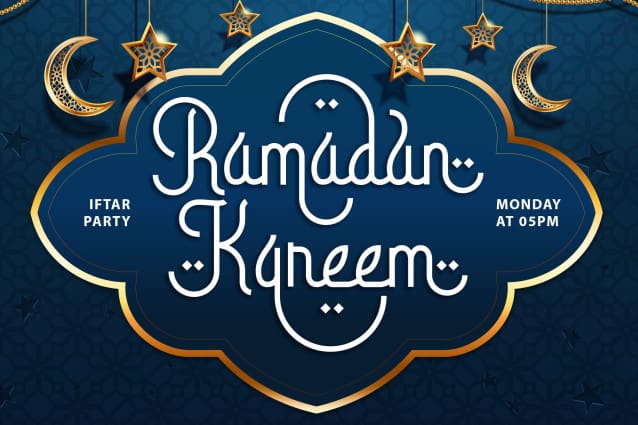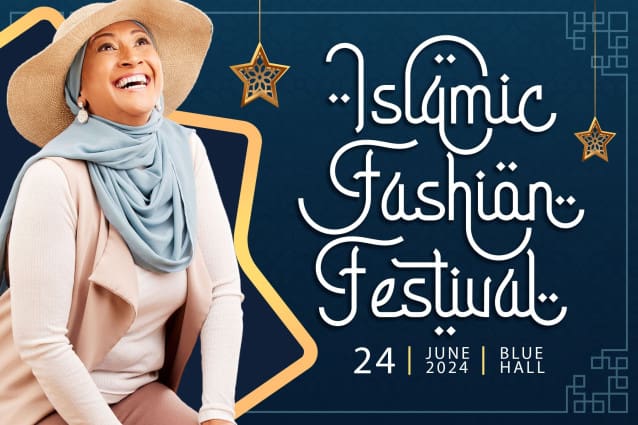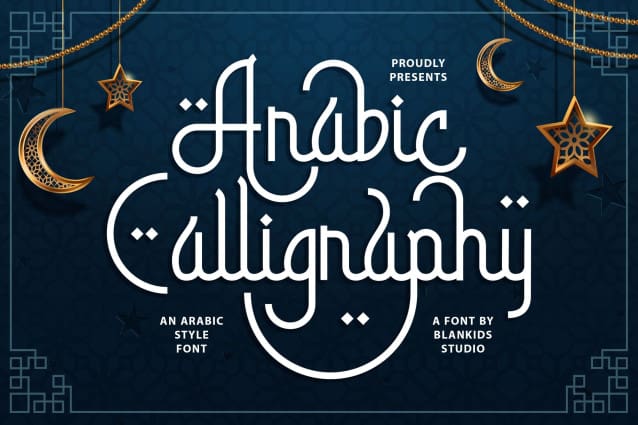
Arabic Calligraphy Font
Arabic Calligraphy Font, a script font meticulously crafted to emulate the elegant curves and strokes of Arabic lettering. This font exudes an aura of the Arab world, perfect for those seeking a typeface with Islamic themes, tailored for Muslim communities and Ramadan-related designs.
Arabic Calligraphy is designed for individuals and businesses in search of a font that captures the essence of Islamic artistry, ideal for various design needs, from product branding to creative projects.”